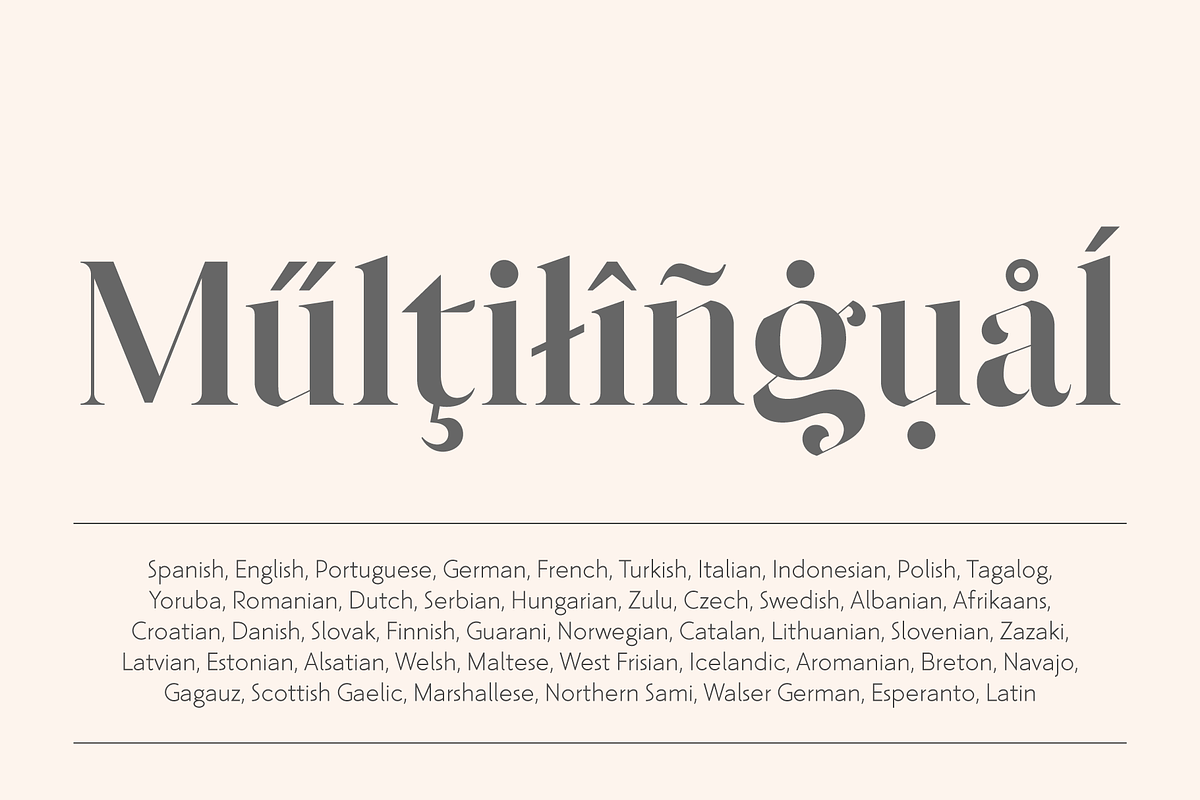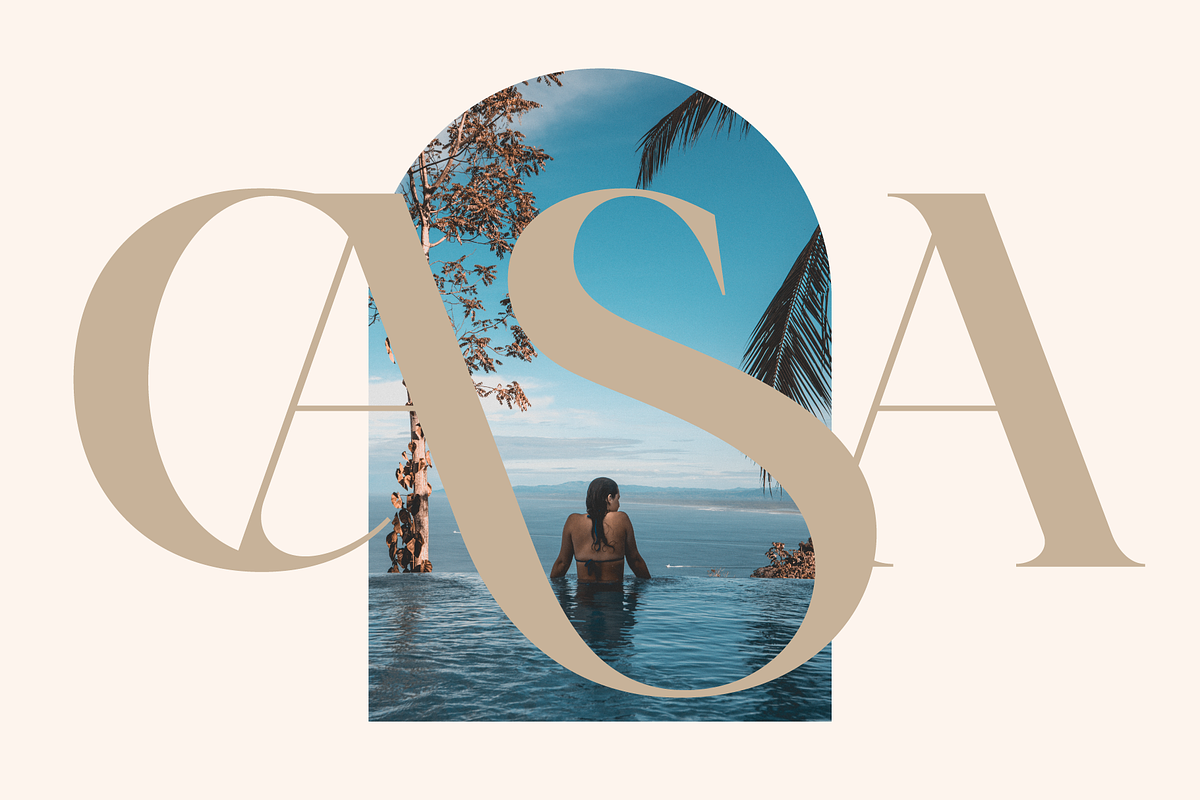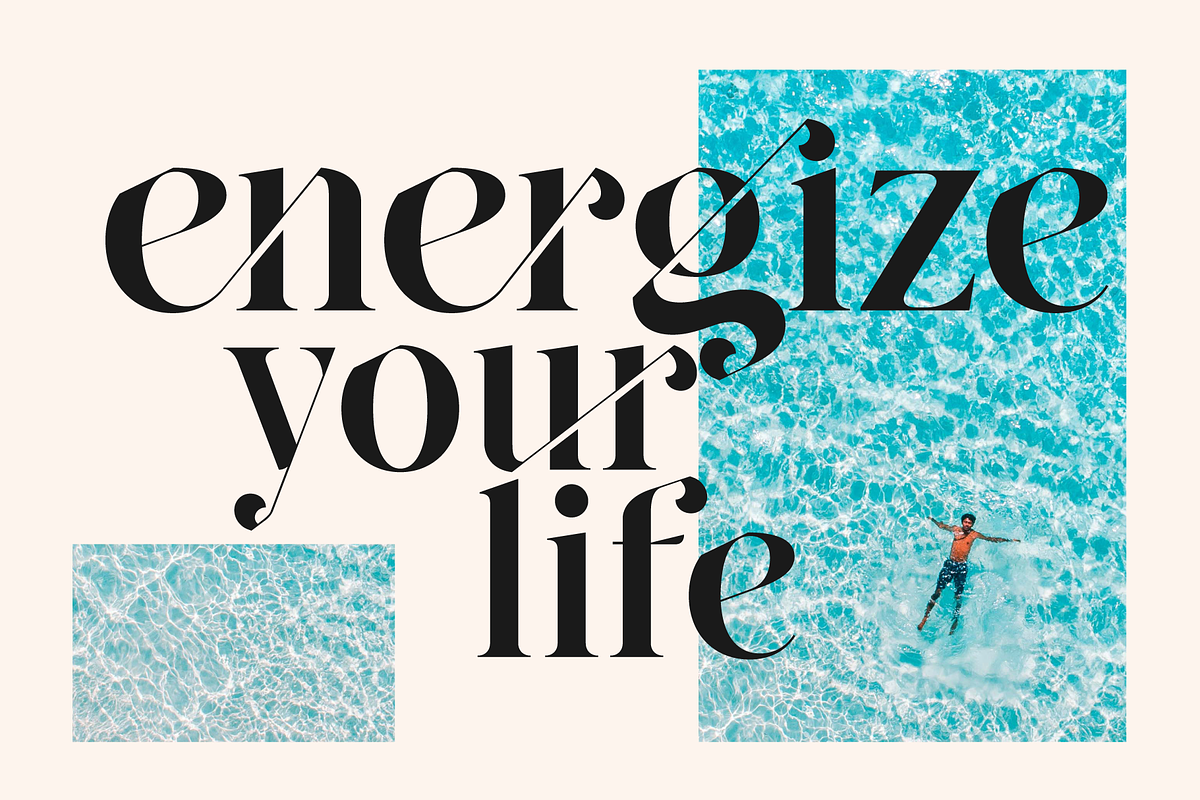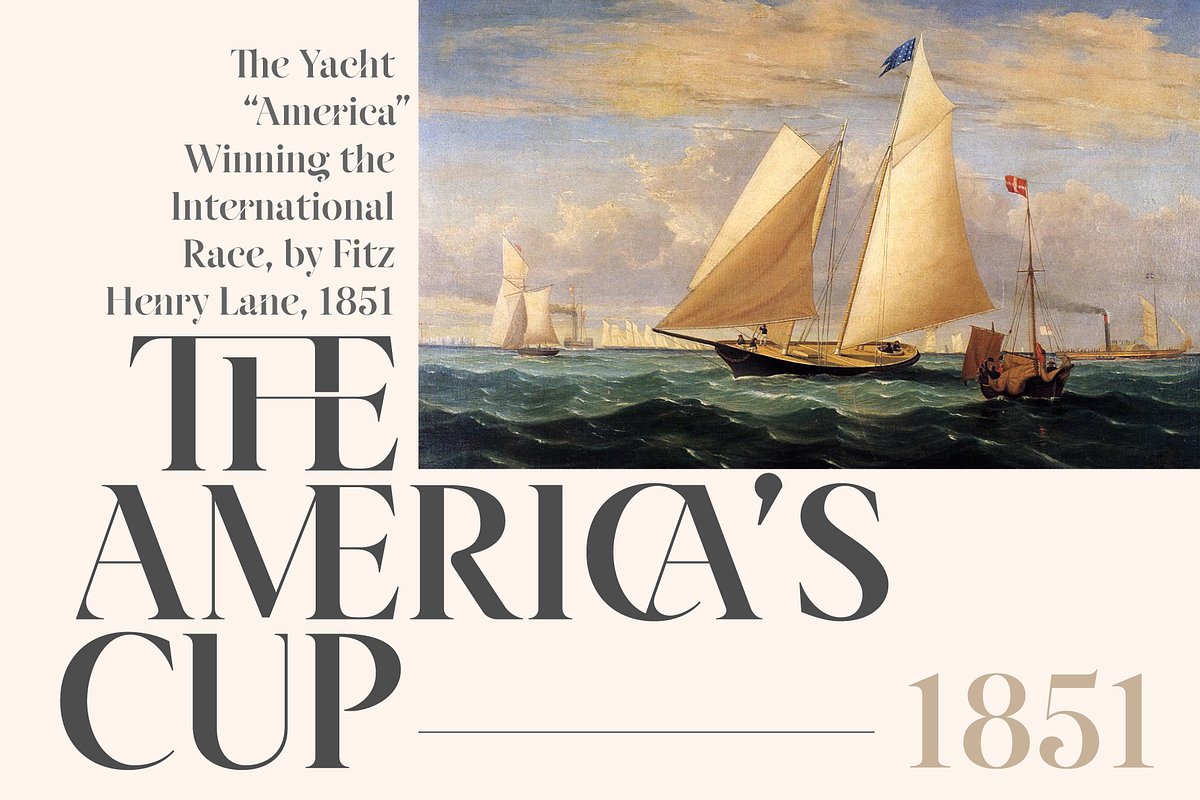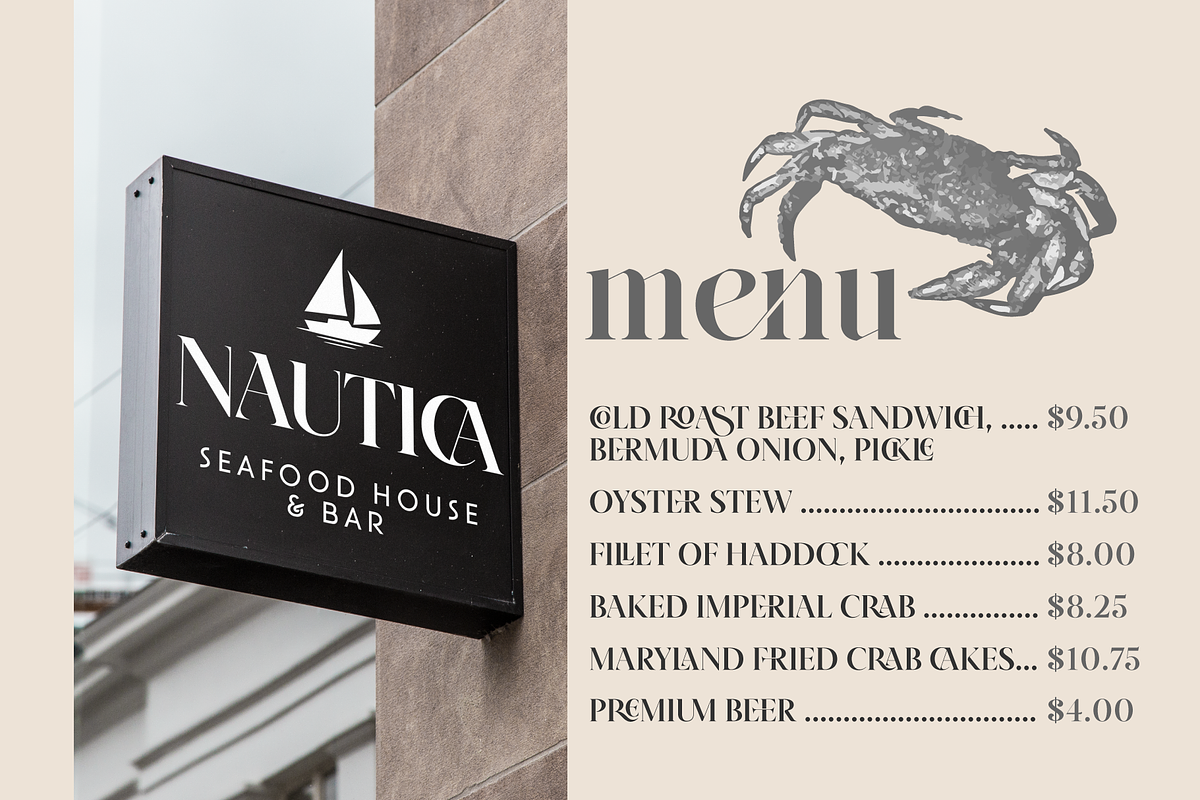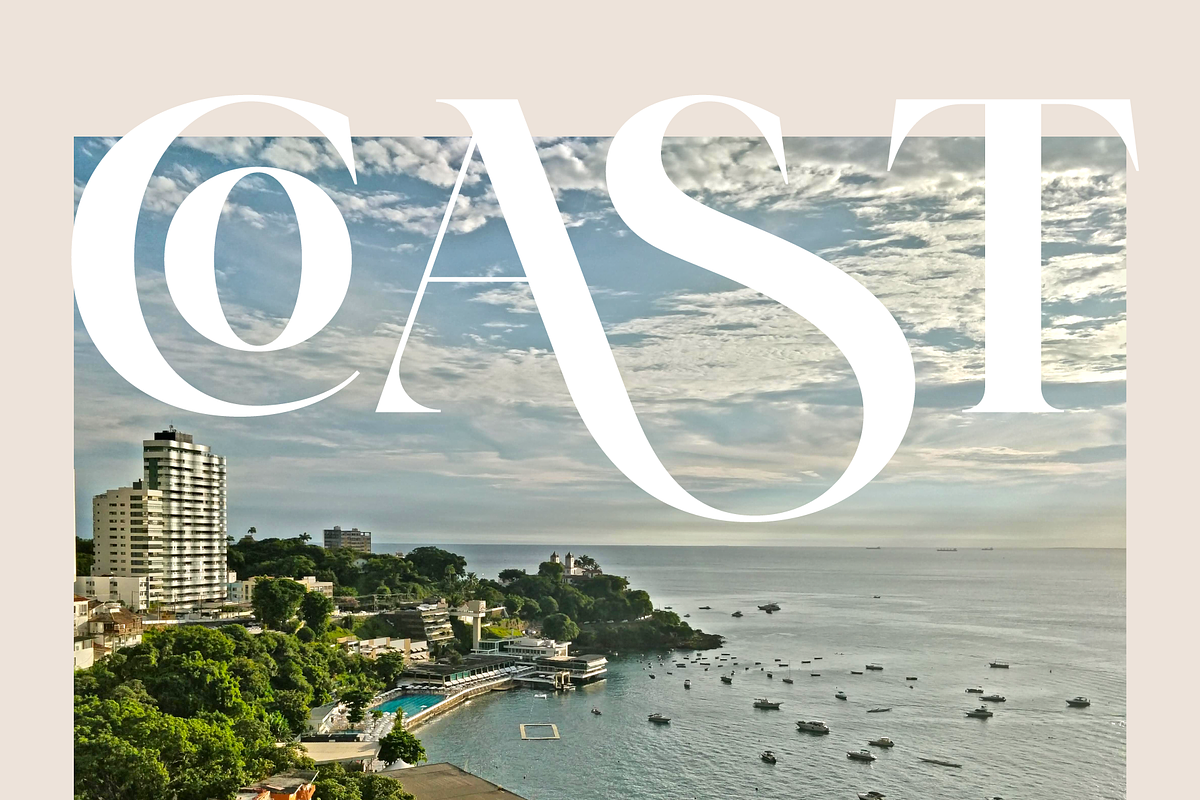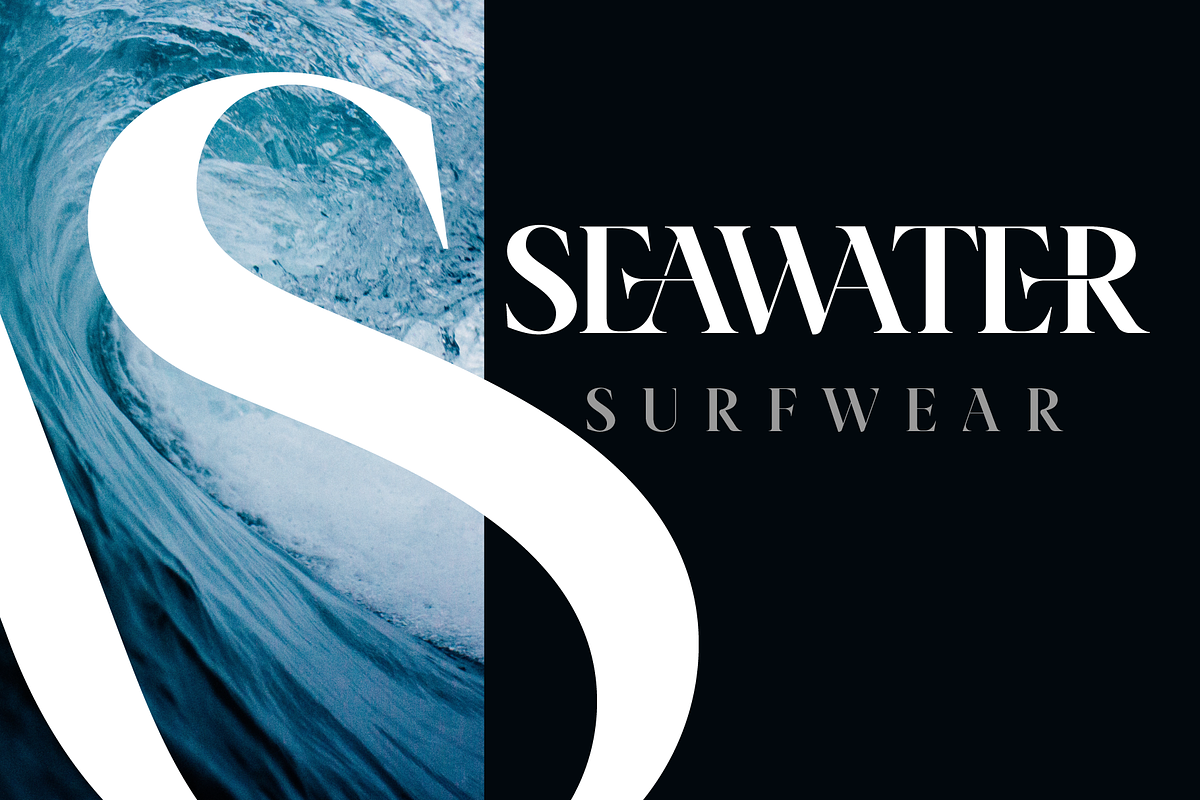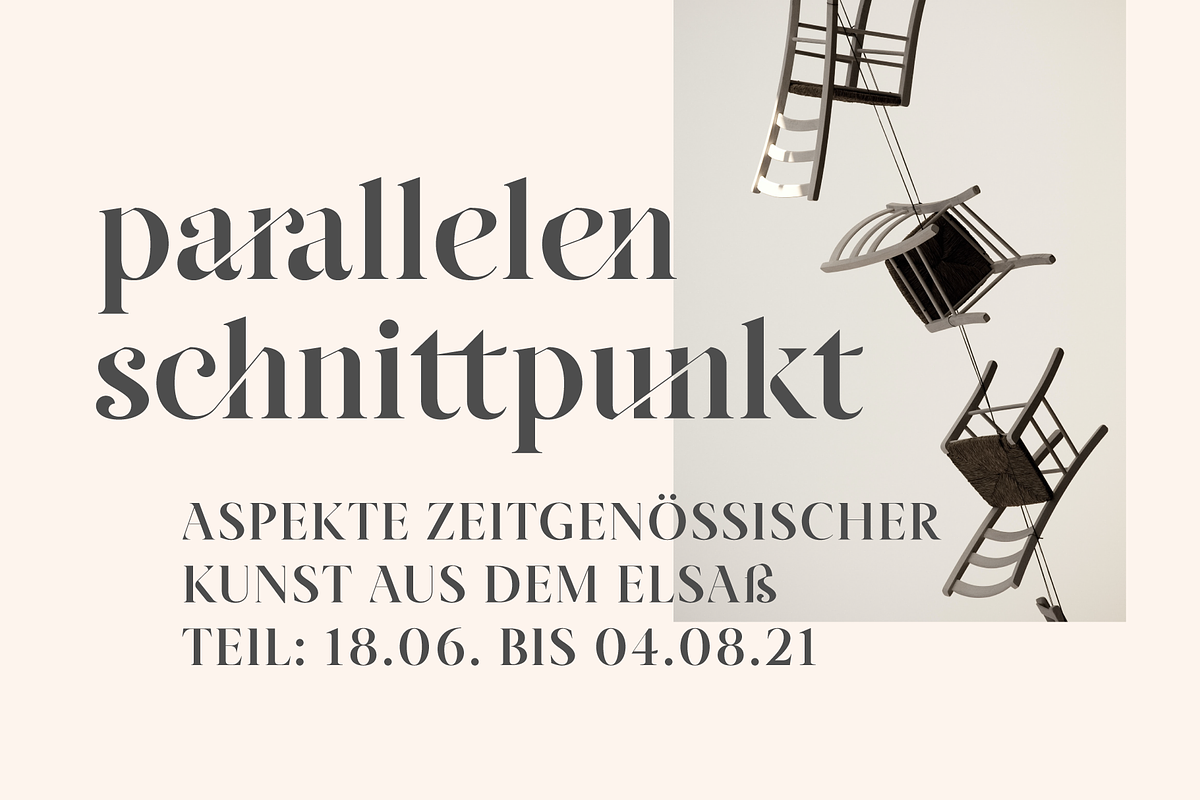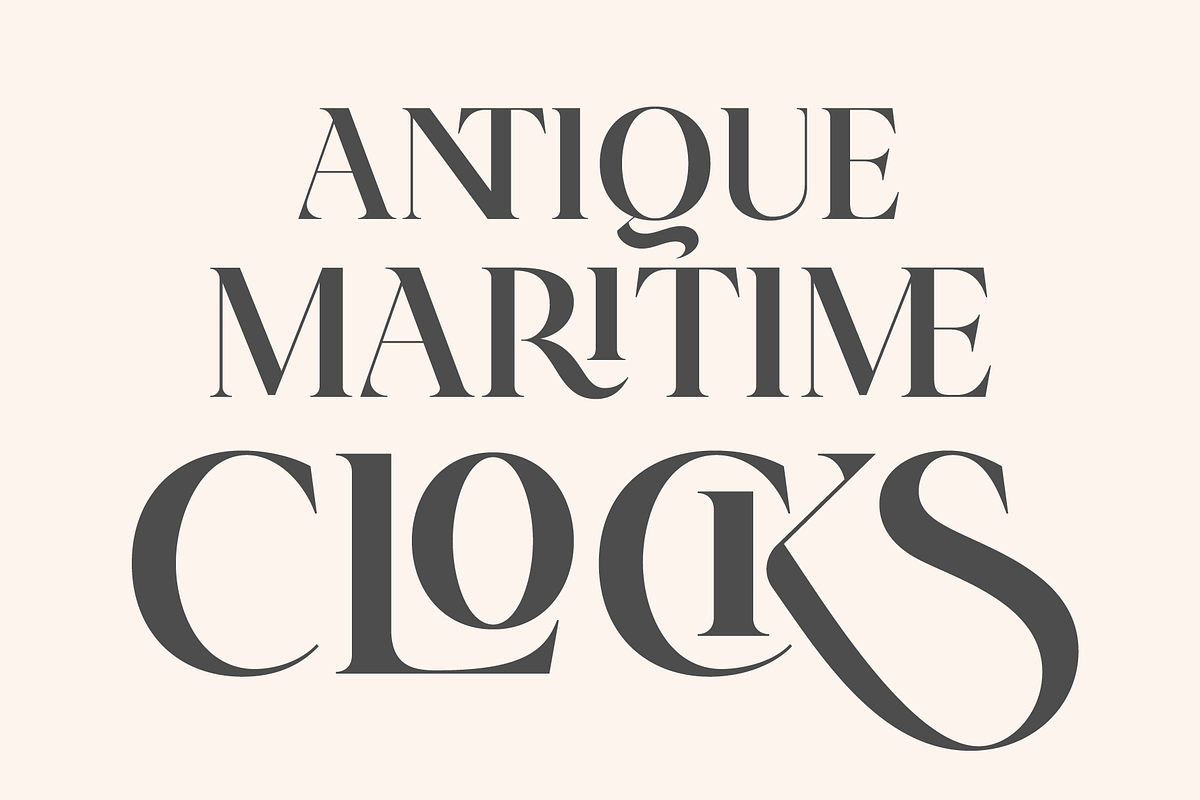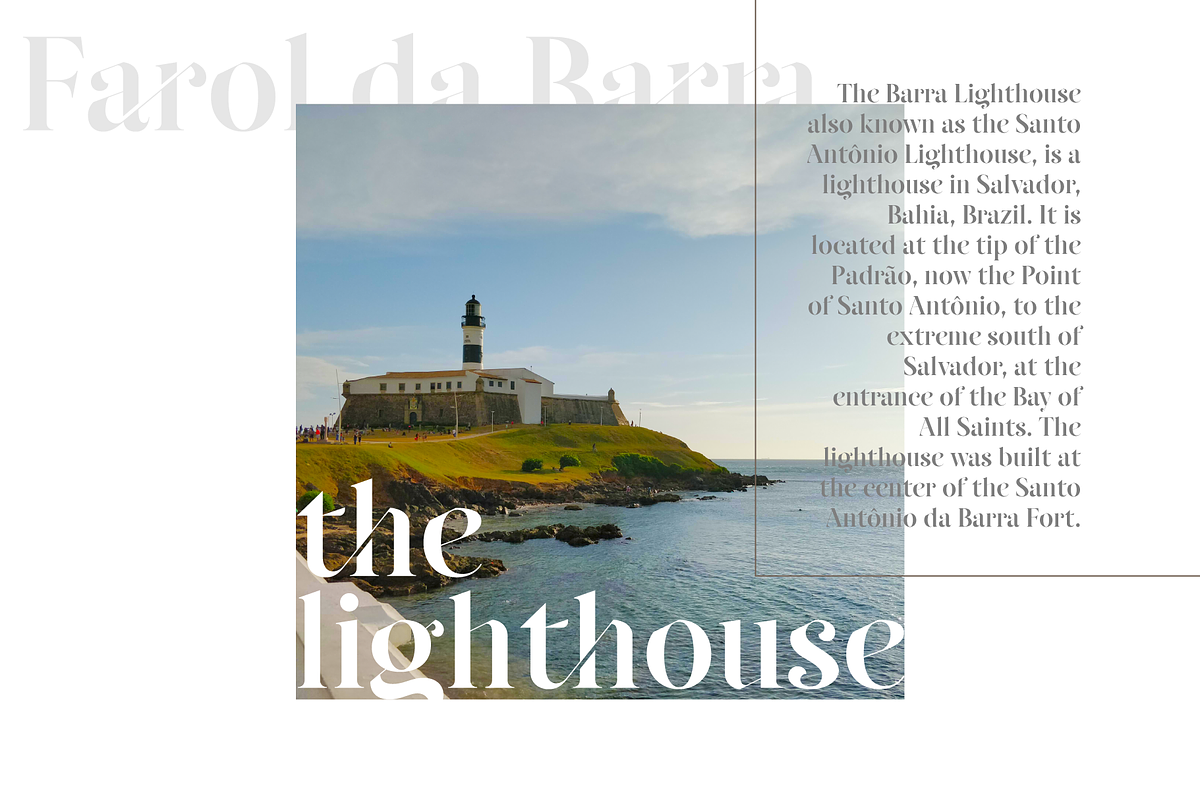
Yacht - Modern Ligature Font
Introducing c, a modern and elegant serif font. It's equipped with a variety of discretionary ligatures to give you all you need for great typography. Yacht is very suitable for posters, branding, logotype, headlines, editorial design and much more.
- Ligatures - Standard and Discretionary
- Multi-Lingual Support - Yacht comes packed with full multilingual support, ensuring that your typography remains impeccable across diverse languages and regions.